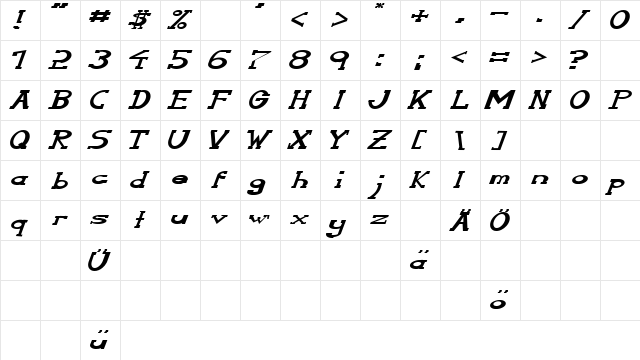
Serifonwide Italic
Design Context for Serifonwide Typeface
Serifonwide carries the refined structure of traditional serif typography, with bracketed terminals and considered proportions that communicate credibility and craft. The dynamic lean of this cut emphasises speed and emphasis in any layout.